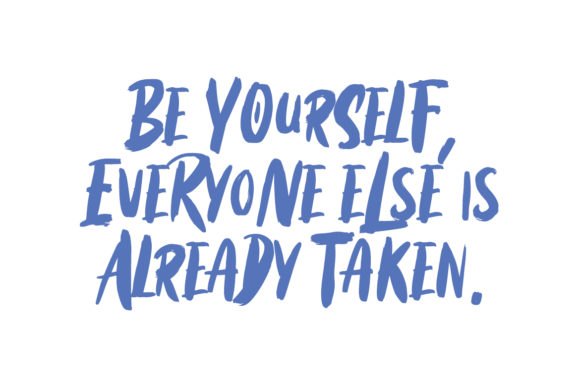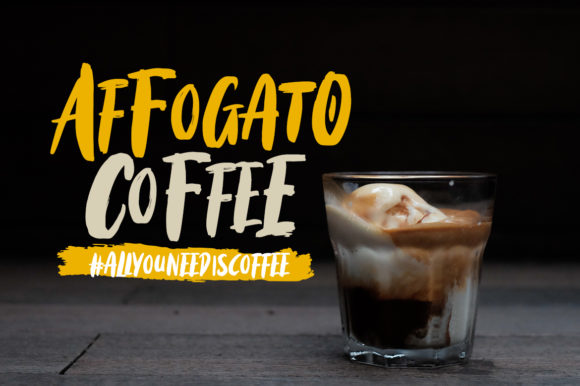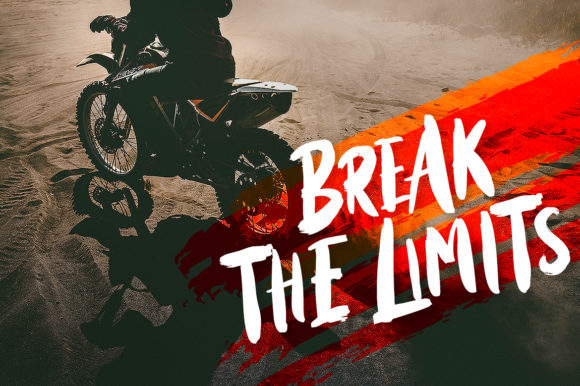
The Quest for the Perfect Font: How Black Torch Stole the Show
I still remember the design project that led me to discover Black Torch Font. I was working on a branding campaign for a local artisan market, and I needed a font that would capture the essence of handmade, natural products. I spent hours scouring font databases, but nothing seemed quite right – until I stumbled upon Black Torch. Its rough, dry brush strokes instantly resonated with the market’s rustic charm. I knew right then and there that I had found my perfect match.
An Honest Review of Black Torch Font
- 💥 **Expressive brush strokes**: Black Torch’s natural, rough texture gives any design a unique, handcrafted feel.
- ✅ **Versatility**: This font is perfect for a wide range of projects, from branding and packaging to social media graphics and craft tutorials.
- 💪 **High-impact headlines**: Black Torch’s bold strokes make it ideal for attention-grabbing titles and headings.
While Black Torch is an amazing font, it’s not without its quirks. For instance:
- 🤔 **Legibility at small sizes**: Due to its rough texture, Black Torch can become difficult to read at very small font sizes (below 12pt). It’s best used at larger sizes for maximum impact.
- ⚠️ **Limited use in body text**: While it’s perfect for headlines, Black Torch’s bold strokes can be overwhelming for longer blocks of text. Use it sparingly to avoid visual fatigue.
A Practical Guide to Using Black Torch Font
The Story Behind Black Torch Font
Black Torch Font was designed by a creative team inspired by the natural world. They sought to capture the essence of dry brush strokes and rustic textures in a digital font. The result is a bold, expressive typeface that’s perfect for designers and crafters looking to add a touch of handmade charm to their projects.
| Font Name | Black Torch Font |
| Author | Weape Design |
| What type of projects is Black Torch best suited for? | Black Torch is ideal for branding, packaging, social media graphics, and craft tutorials that require a bold, handmade look. |
| Is Black Torch available in different weights or styles? | Black Torch Font may come in different variations, such as regular, bold, or italic. Check the font package or documentation for available styles. |